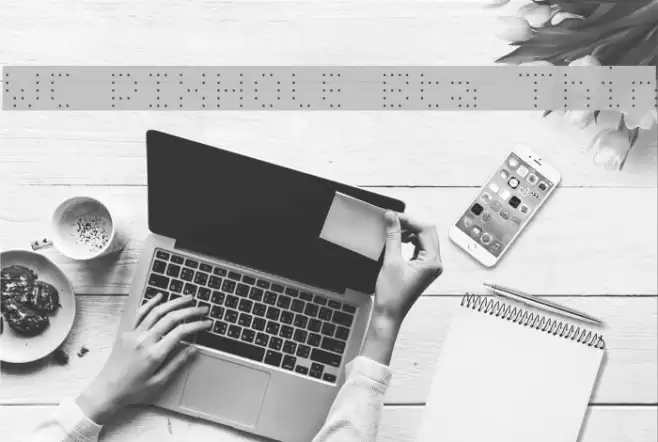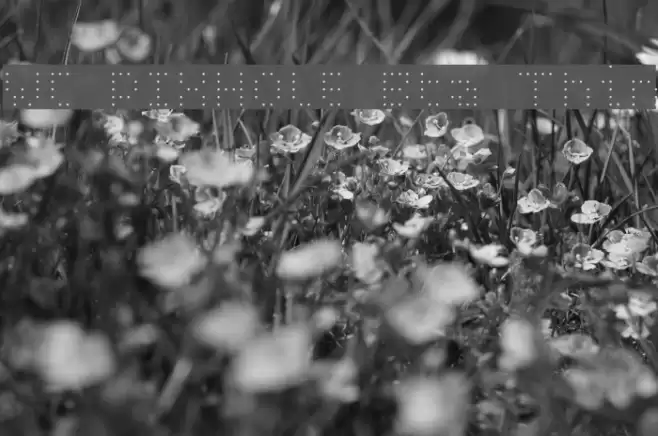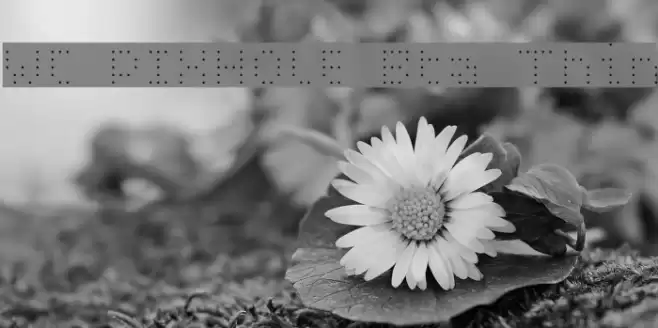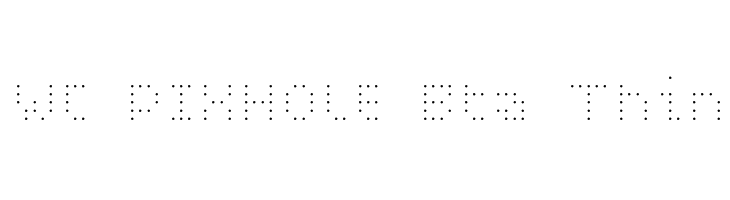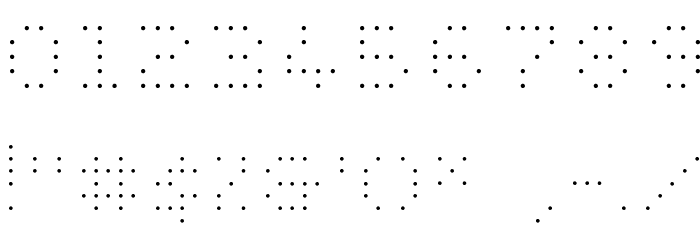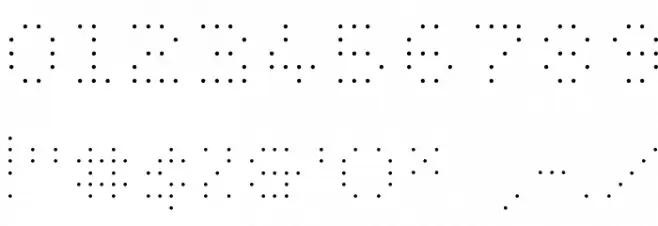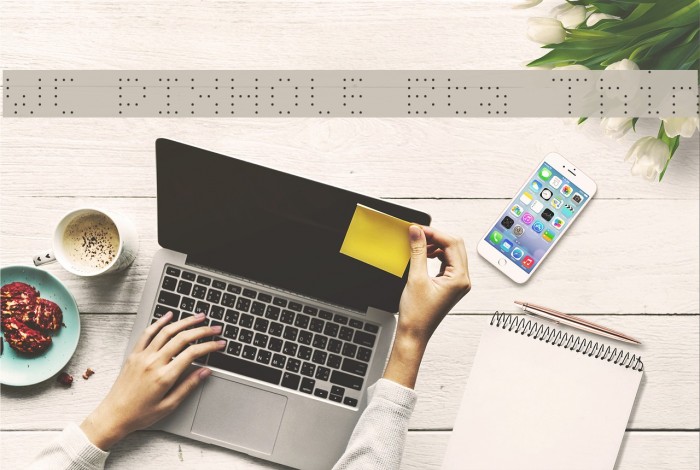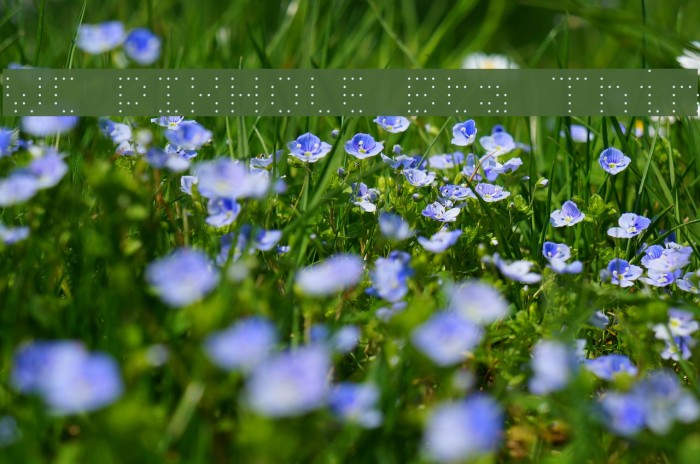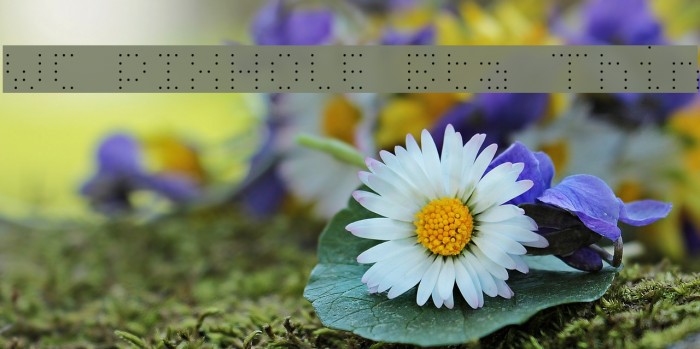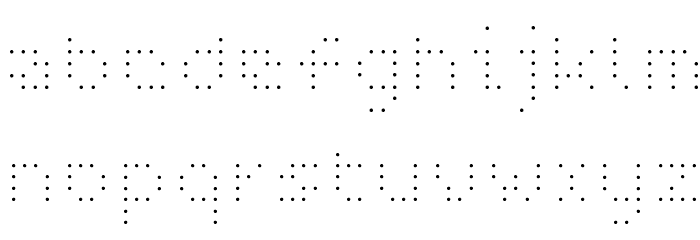
WC PIXHOLE Bta Thin Font
WC PIXHOLE Bta Thin Description
This font features a unique dotted design, where each character is composed of small, evenly spaced dots. The overall appearance is modern and minimalistic, creating a digital or pixelated effect. The characters maintain a consistent structure, making them easily recognizable despite the unconventional style. This font is particularly suitable for creative projects that require a futuristic or tech-inspired aesthetic. The spacing between the dots is uniform, contributing to a clean and organized look. It is a decorative font that stands out due to its distinct approach to character formation.
A modern, dotted font with a digital, pixelated appearance from Uncategorized fonts.
- Proposed Projects: Ideal for digital art, tech-themed designs, futuristic branding, and creative posters.
- Use Case: Logos, Headlines, Creative projects